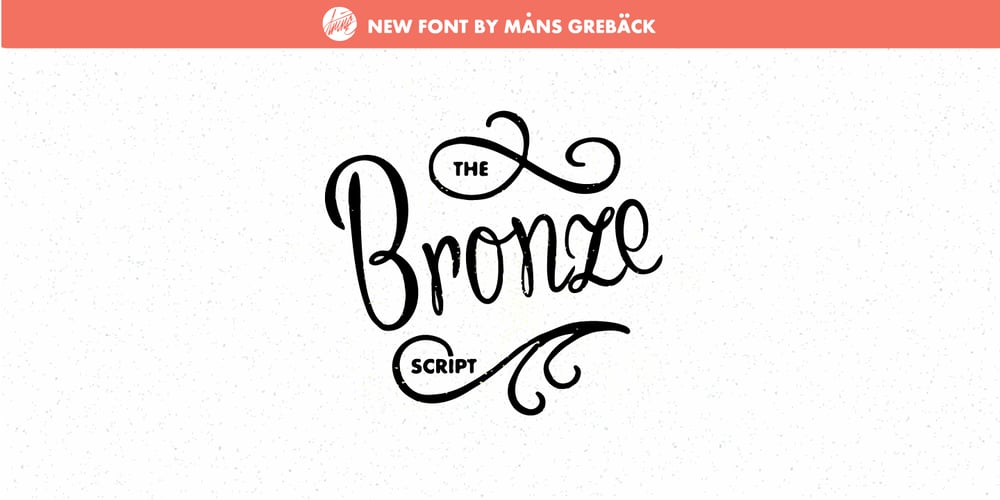
Bronze Script Font Family was designed by Måns Grebäck and published by Mans Greback. Bronze Script contains 1 styles and family package options. Let Bronze Script take you back. Back to the golden age of vintage when hand drawn scripts appeared in every form of publication. A different time when everything moved slower, lettering was done with expertise, and every detail awarded care and attention. In our age of cold digital creations, you can rest assured that Bronze Script will give you that tailor made flare only a nostalgic font can offer.